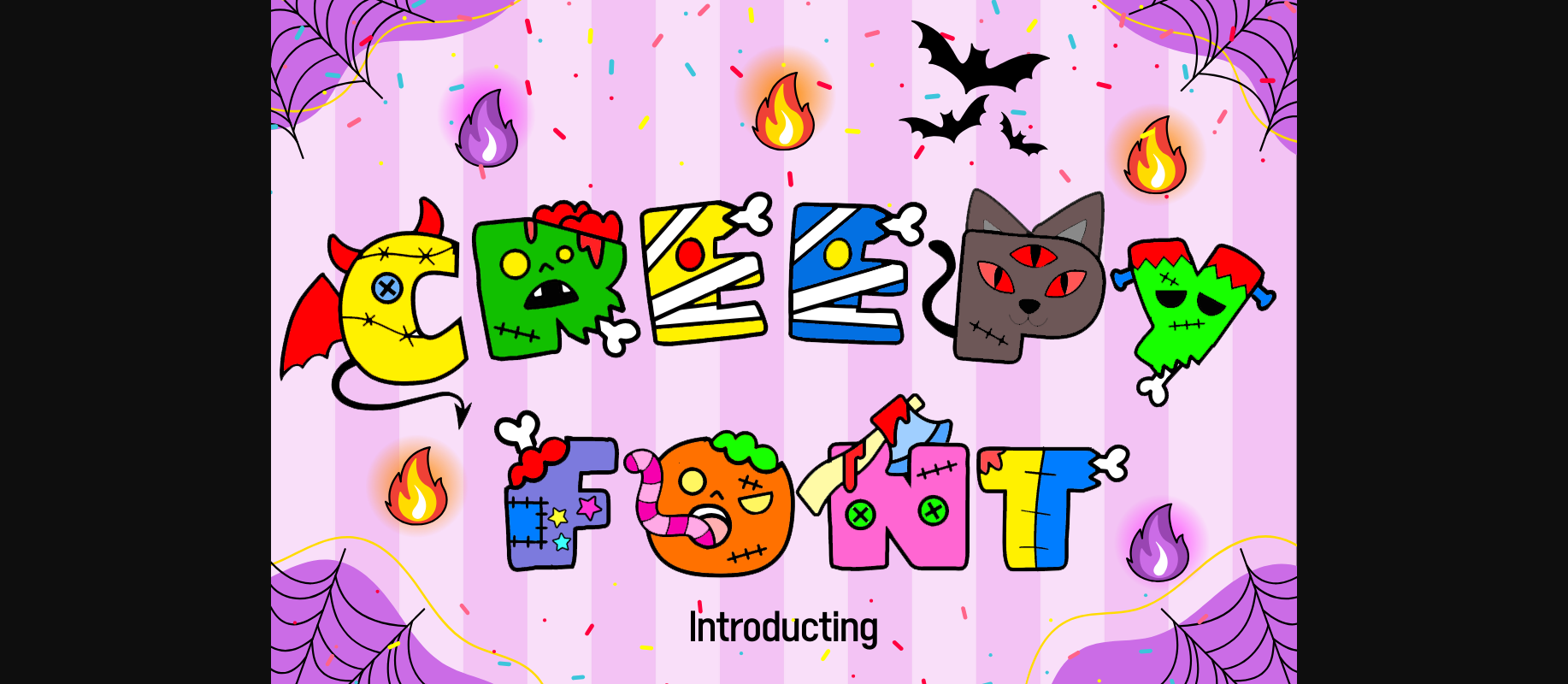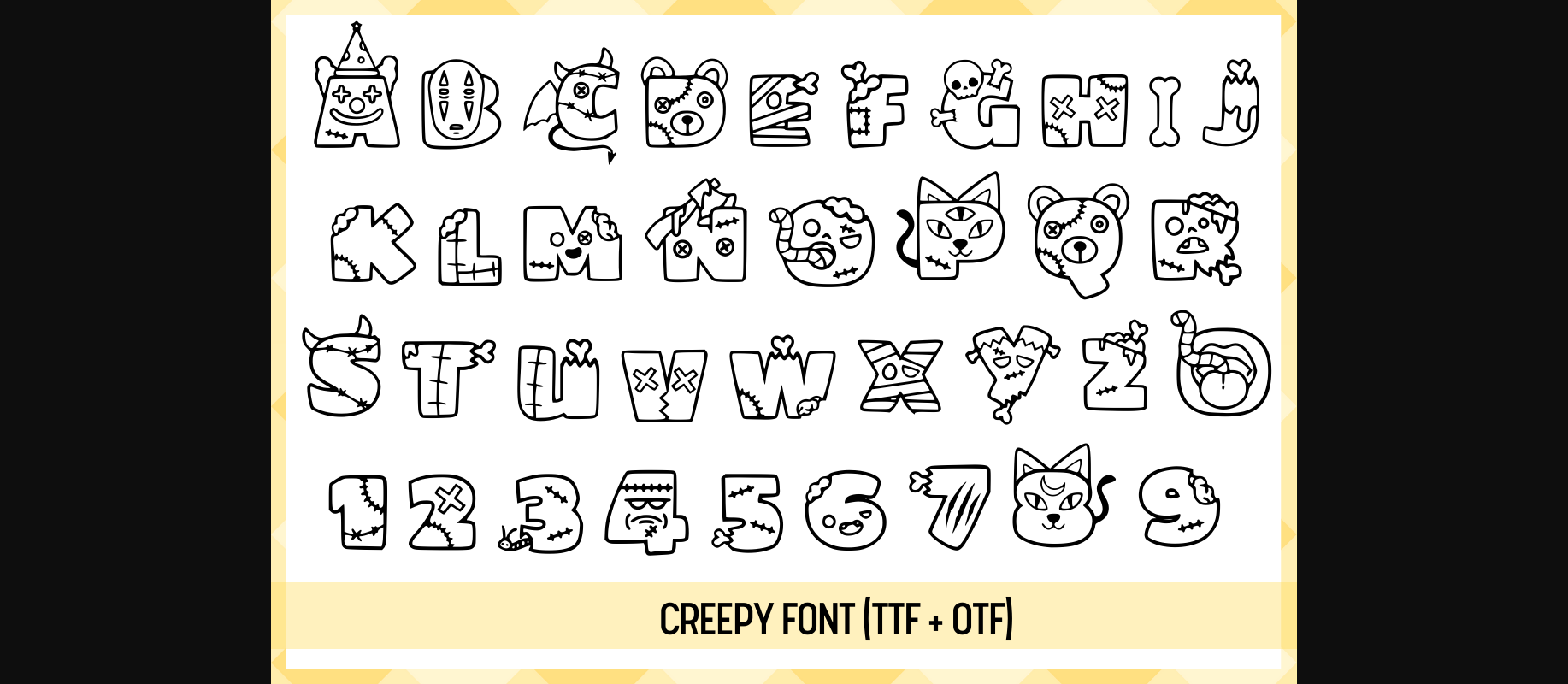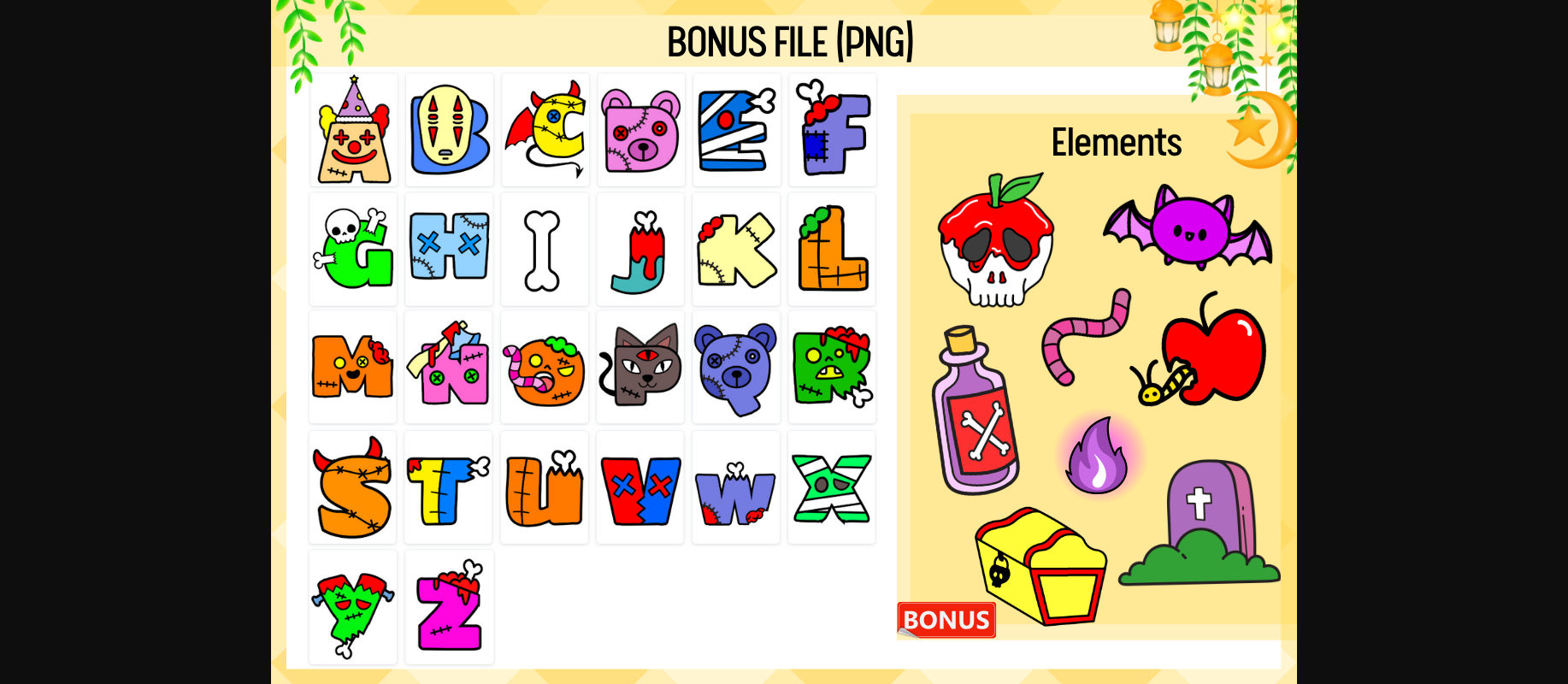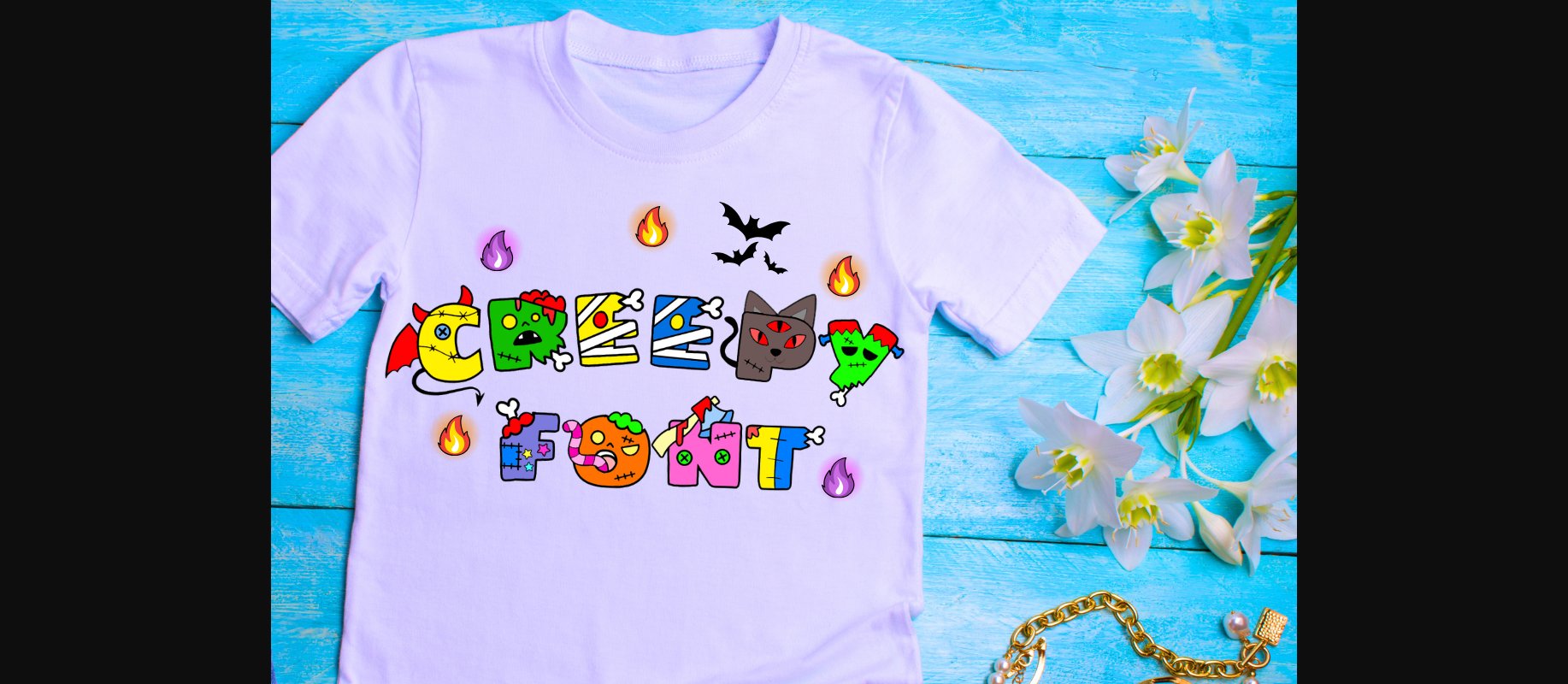
About Creepy Font
Creepy is a spooky and playful typeface perfect for Halloween-themed designs and haunted house signage. Its jagged edges and eerie shapes give a chilling vibe, while its playful demeanor adds a touch of fun. Ideal for posters, invitations, and any project needing a dash of creepiness.